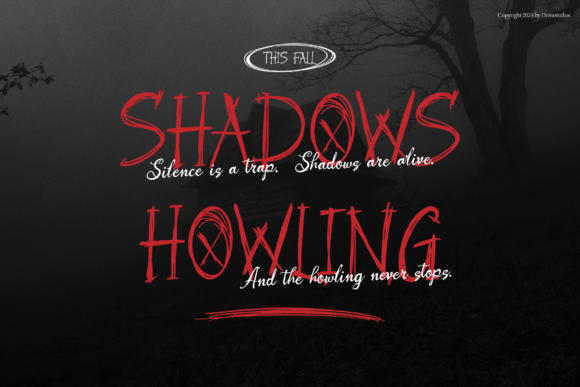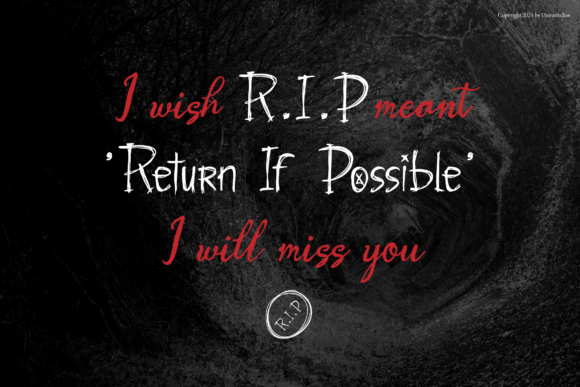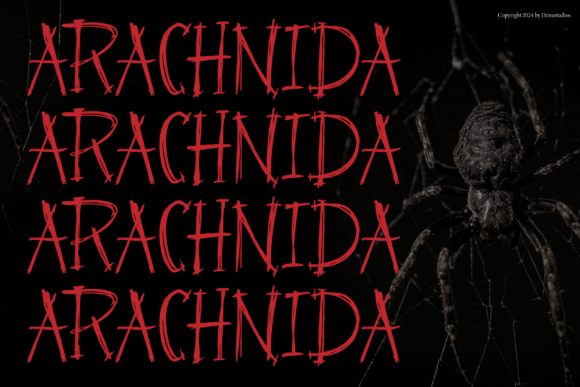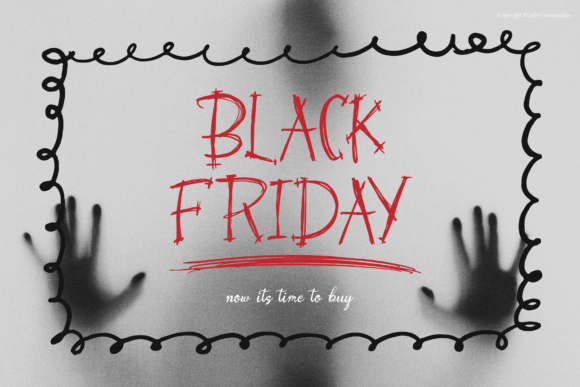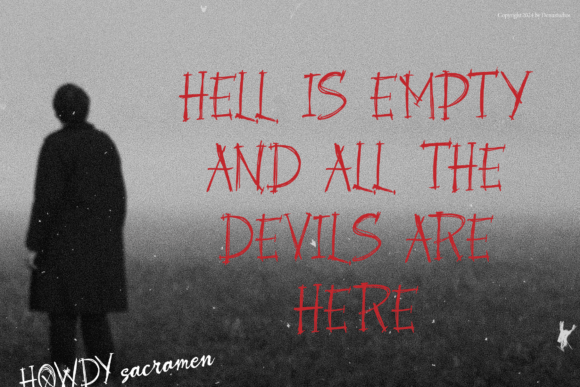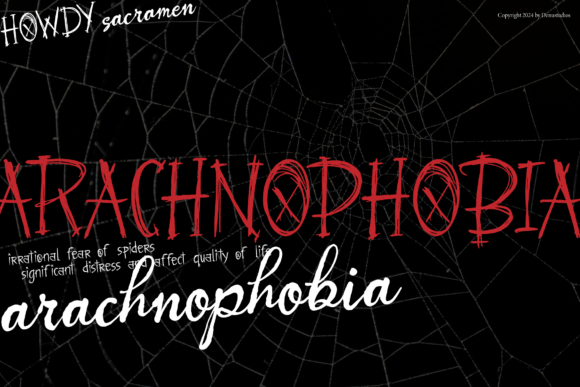
Introduction to Howdy Sacramen Font
Have you ever stared at a blank page, struggling to bring your creative vision to life? That’s exactly what happened to many designers who discovered the captivating Howdy Sacramen Font. This eerie, hand-drawn font duo has become a go-to choice for designers seeking to add a touch of horror and whimsy to their projects.
Whether you’re working on a logo, branding project, or even designing homeware, the Howdy Sacramen Font offers a unique and high-quality design resource that’s sure to set your project apart. With its transparent background and versatile style, this font is perfect for a wide range of creative projects, from product packaging to posters and beyond.
Key Features of Howdy Sacramen Font
- Unique Western-inspired design for creative projects and design resources
- Includes a wide range of characters, including uppercase and lowercase letters, numbers, and punctuation
- Perfect for use in logos, branding, and other design elements that require a distinctive and creative touch
Honest Review: Howdy Sacramen Font
As a designer, I’m always on the lookout for high-quality design resources that can elevate my creative projects. Recently, I had the chance to try out the Howdy Sacramen Font, and I’m excited to share my thoughts with you.
First impressions: this font is a real showstopper. The rustic, vintage vibe is perfect for anything from rustic wedding invitations to vintage-inspired packaging designs. I love the creative possibilities it offers, and the fact that it’s a free download makes it even more appealing.
What works well: ✨ The font’s versatility is a major plus. It can be used for a wide range of design projects, from casual to formal, and always looks great. The transparent background feature is also a nice touch, making it easy to layer and manipulate in your design.
Limitations: ⚠️ While the font is high quality, it can be a bit difficult to read in smaller sizes. Additionally, some users may find the font’s rustic aesthetic a bit too rough or uneven.
Overall, I’m really impressed with the Howdy Sacramen Font. It’s a great addition to any designer’s toolkit, and I’m excited to see where it takes my creative projects.
- Perfect for vintage-inspired designs
For getting the most out of the Howdy Sacramen Font, use it for headings and titles in your design. This font is commonly used in branding materials, social media graphics, and advertising campaigns.